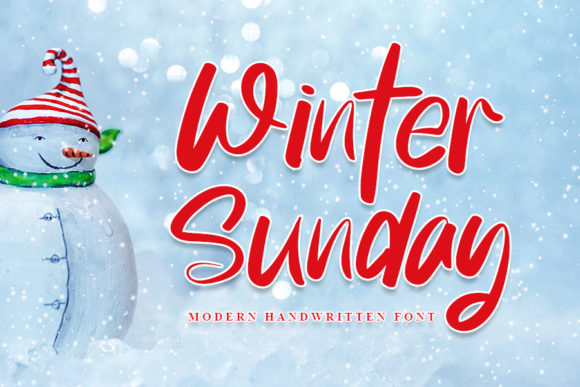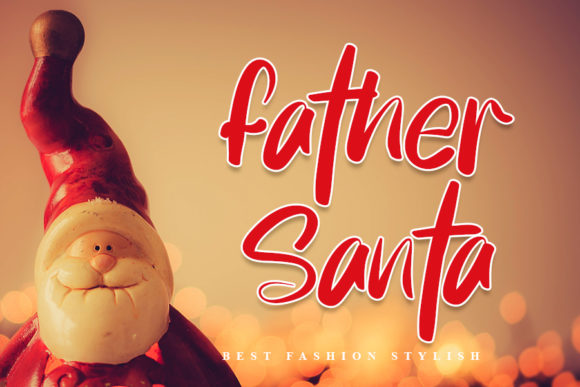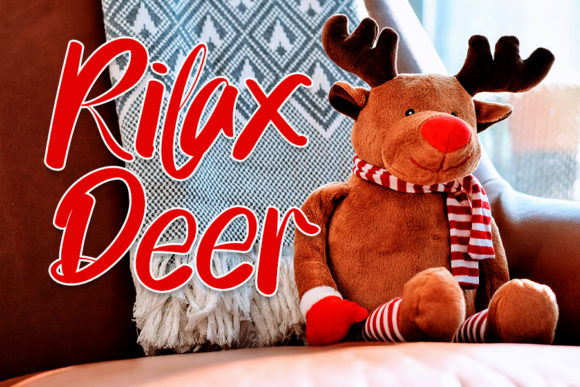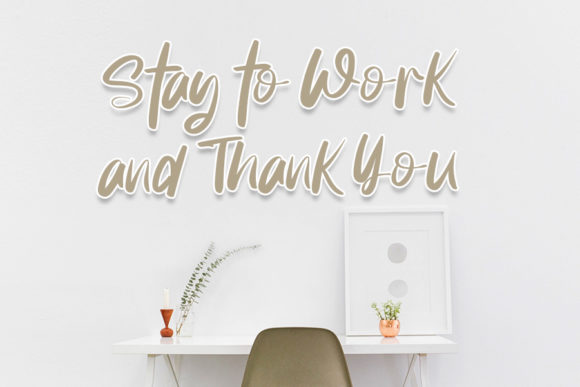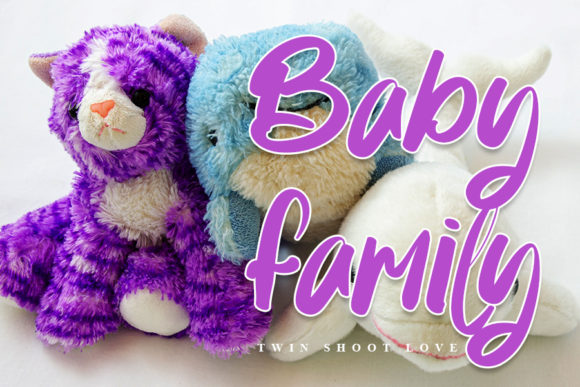
About Winter Sunday Font
Winter Sunday is a flowing and relaxed handwritten font. This gentle font will look gorgeous on a variety of design ideas. It will add a joyful and romantic touch to each of your projects!